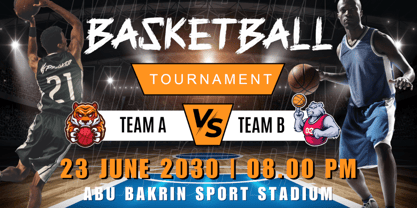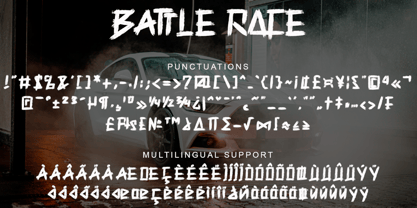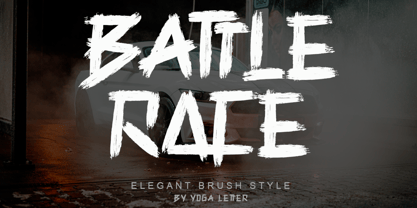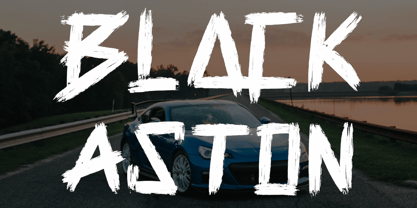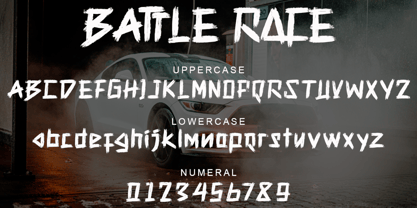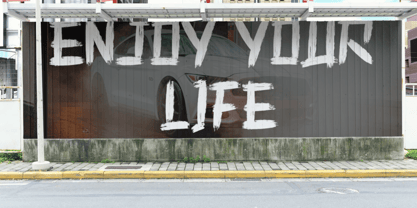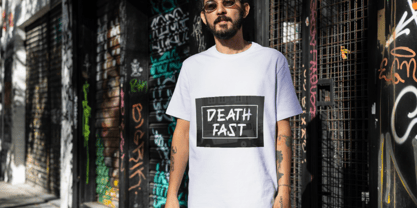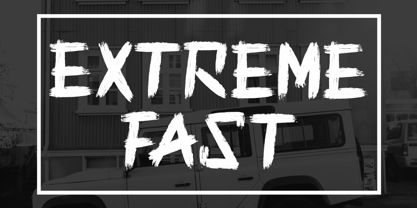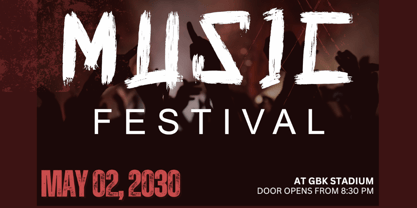
Battle Race
par Yoga Letter
La famille de polices Battle Race a été conçue par Isroni Yoga Prasetya et publiée par Yoga Letter. Battle Race contient 1 styles.
"Battle Race" is a unique, elegant and modern brush font. This font is equipped with uppercase, lowercase, numeral, punctuation, ligatures and multilingual support. Very suitable for stickers, posters, prints, banners, branding, movie titles, book titles, logos, business branding and others.